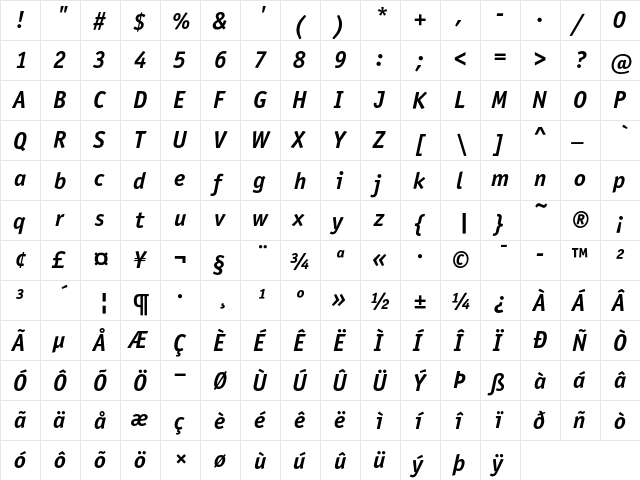
OfficinaSansITC Bold Italic Font Preview
OfficinaSansITC Bold Italic
Design Context for OfficinaSansITC Typeface
OfficinaSansITC is a composed and adaptable typeface that performs quietly and consistently across a wide range of design contexts. The slanted form adds forward momentum and visual energy. The heavy weight commands attention and anchors typographic hierarchies.
Pro Tip: Try OfficinaSansITC for annotation and caption copy alongside an upright companion — the contrast in angle creates a dynamic but ordered typographic system.